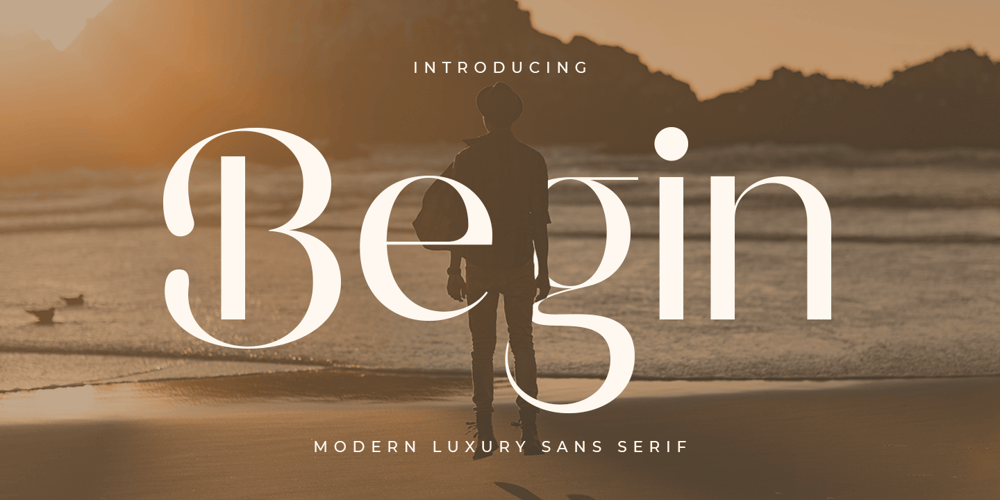
Begin Font Family was designed by Zamroni Hamzah and published by Sensatype Studio. Begin contains 1 styles and family package options. Begin is a Modern Luxury Sans SerifA new Sans Serif font that we created special for project needs, with extra unique shape and ligatures that will add your brand value. It so nice to leverage designer or product owner that need solutions to make their design look more classy and modern. And specially for Begin font, We prepared any alternate characters to help you create unlimited variations for your creative needs specially for logotype or wordmark.Begin Modern Luxury Sans Serif font ready with: Any options to get creative Preview as a inspirations that you can do with Begin font Ready with Lowercase and Uppercase characters Wish you enjoy our font. ๐